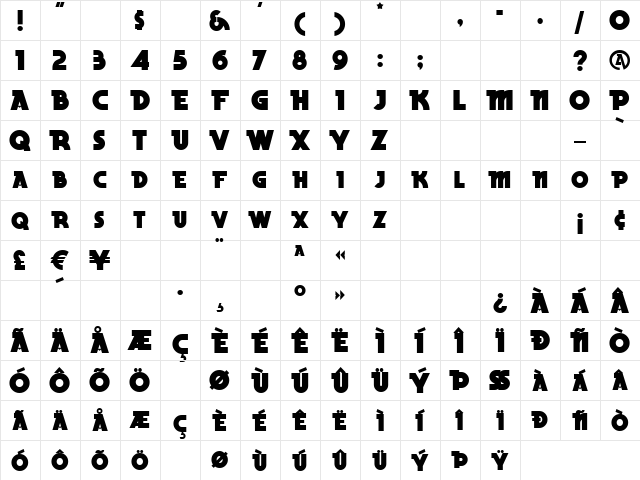
BeckerBlackNF Regular Font Preview
BeckerBlackNF Regular
Design Context for BeckerBlackNF Typeface
BeckerBlackNF offers clean, dependable letterforms without strong stylistic allegiance, making it a practical choice for designers who need flexibility.